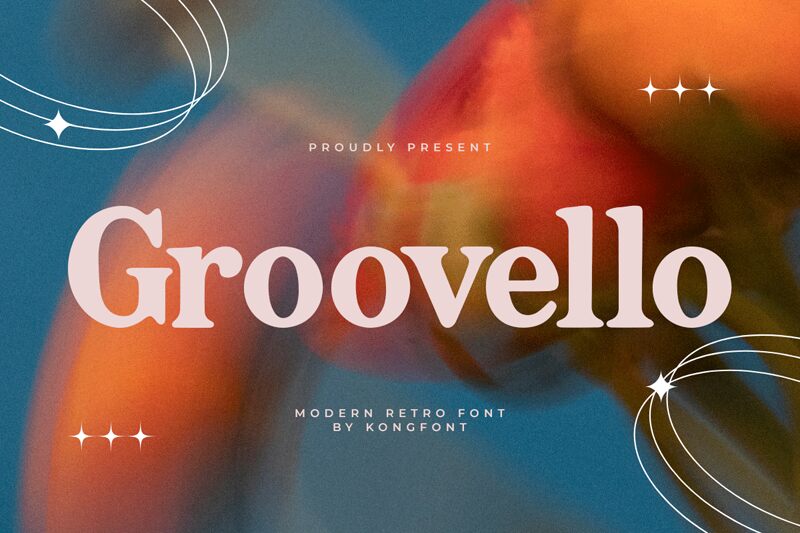
Groovello font by Kong Font is a smooth and fun collection of letterforms organized into flawless geometrical structures and a retro, friendly atmosphere. It’s a refined font inspired by vintage posters and typography, then altered, refined, and constructed. In every curve, you will find charm all along with balance and beauty. And if you like to design traditional urban banners, you’ve reached the right destination for your journey.
Taking a trip around Times Square is a lot like doing so in the country and you can include them both in your projects with this free font. Groovello can be used with magazine covers, album art for artists, menus, signs, book covers, blogs, and websites. And with its extended characters that include punctuation options and numbers, every card holder and ticket will share the same smooth appearance.